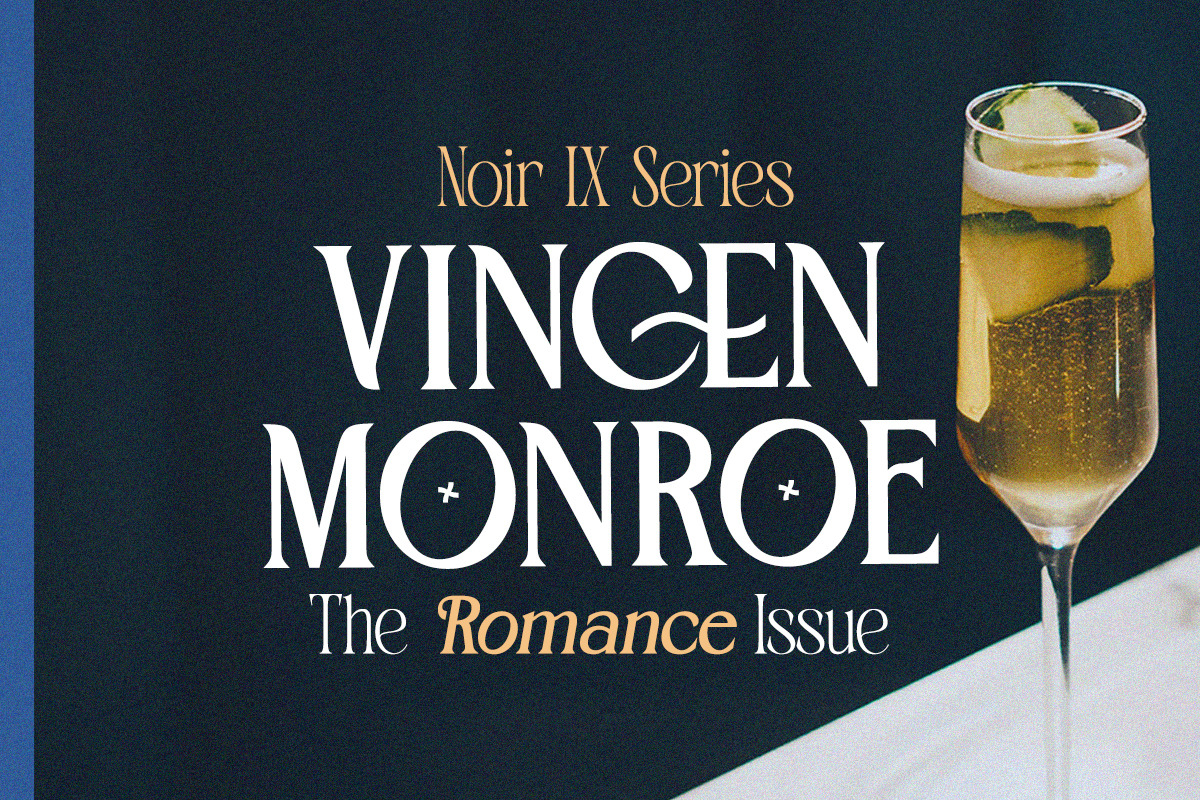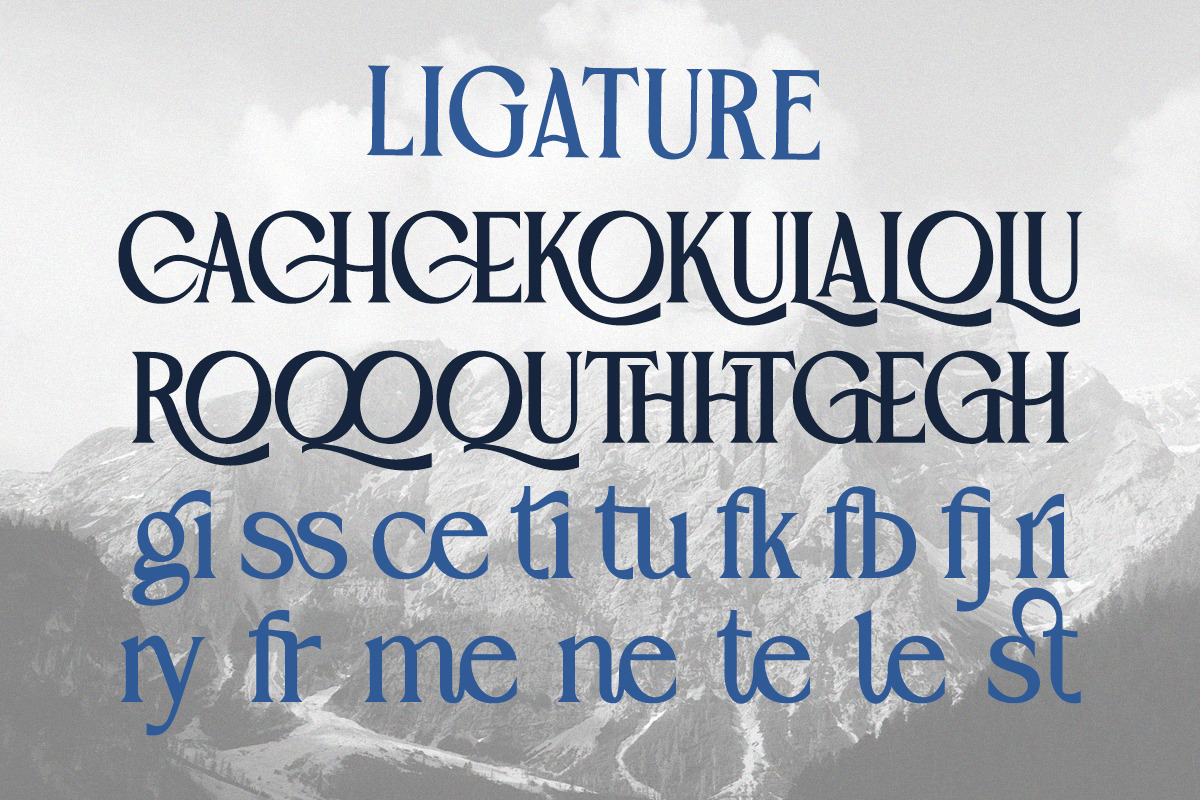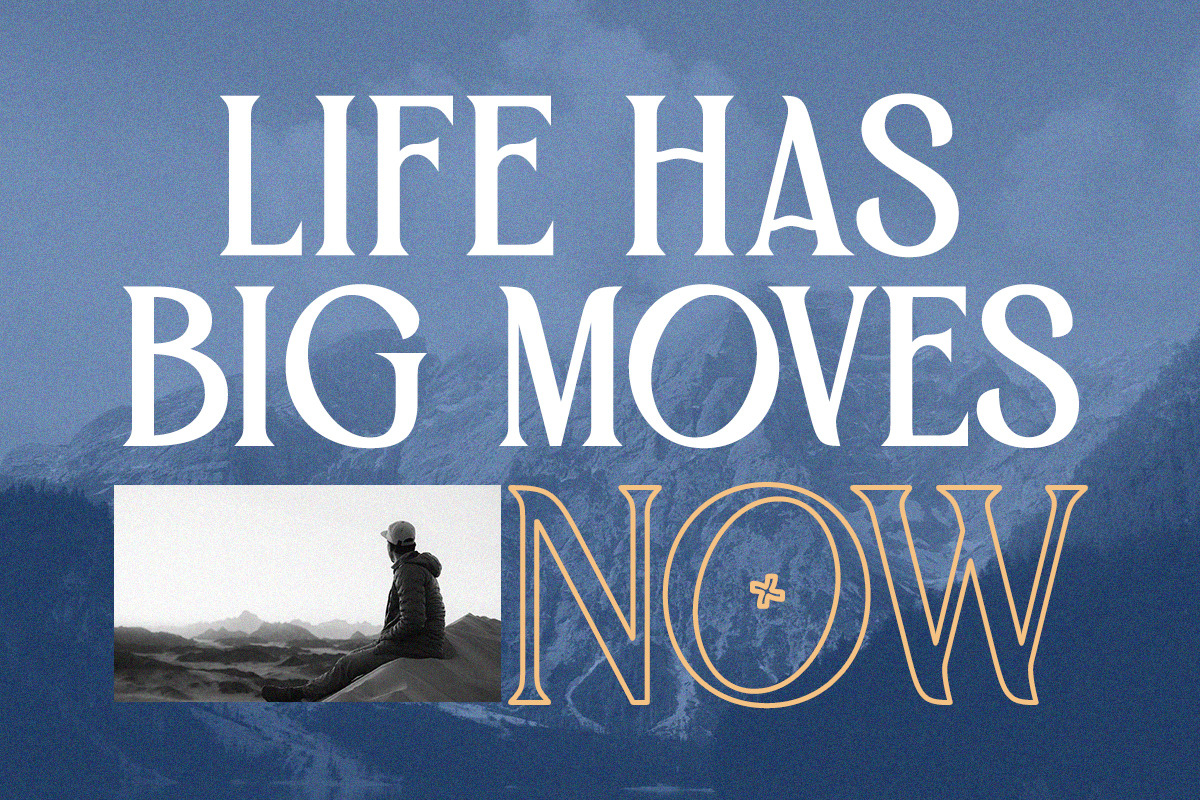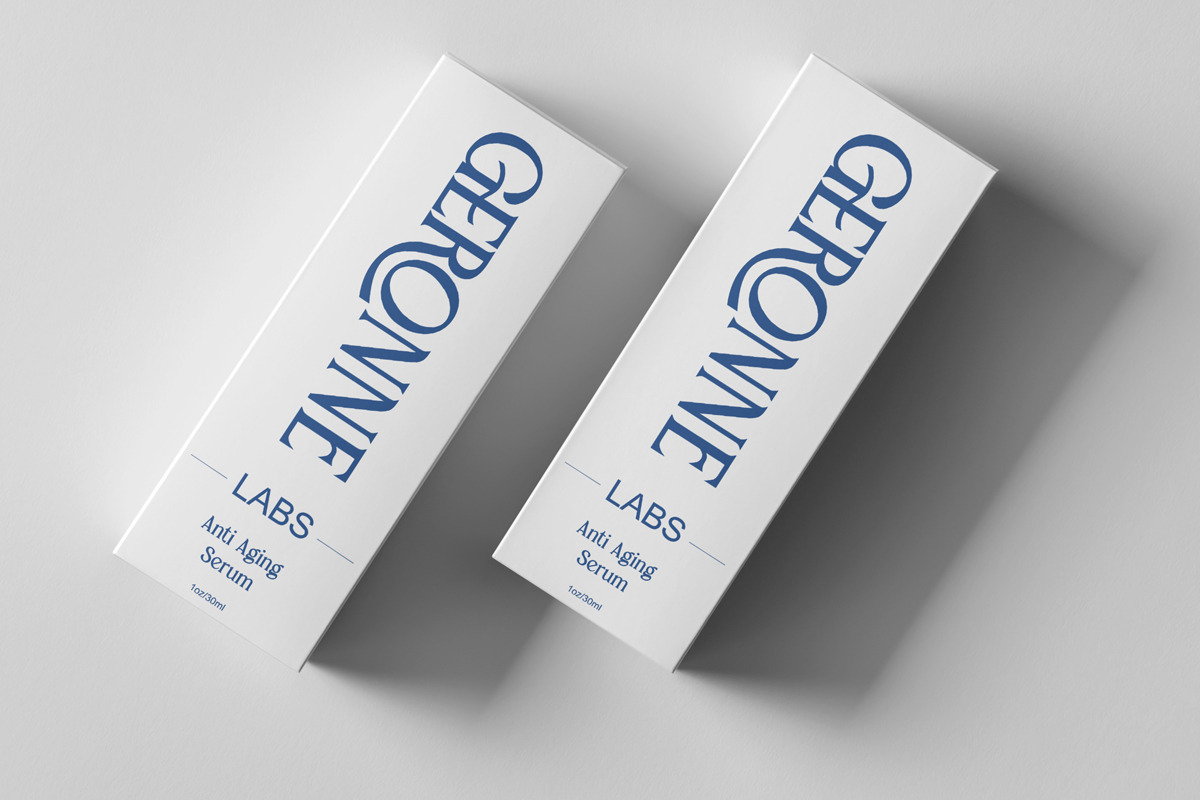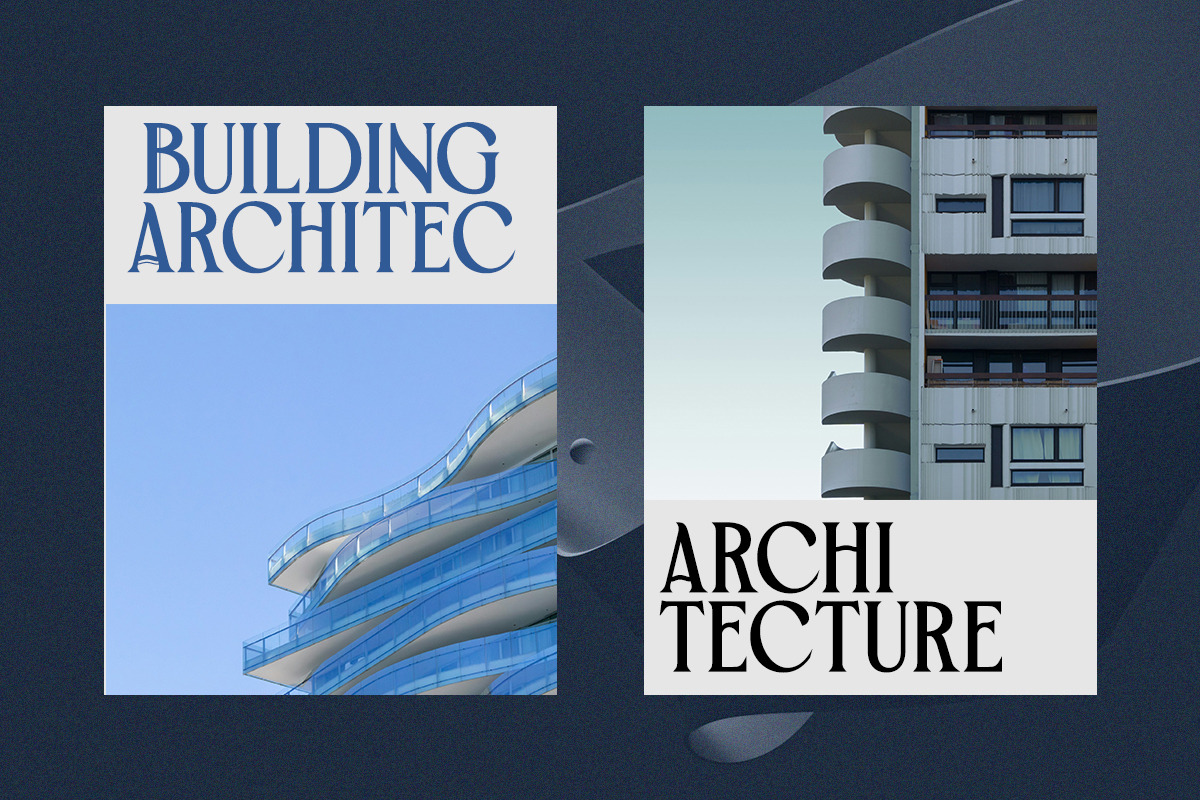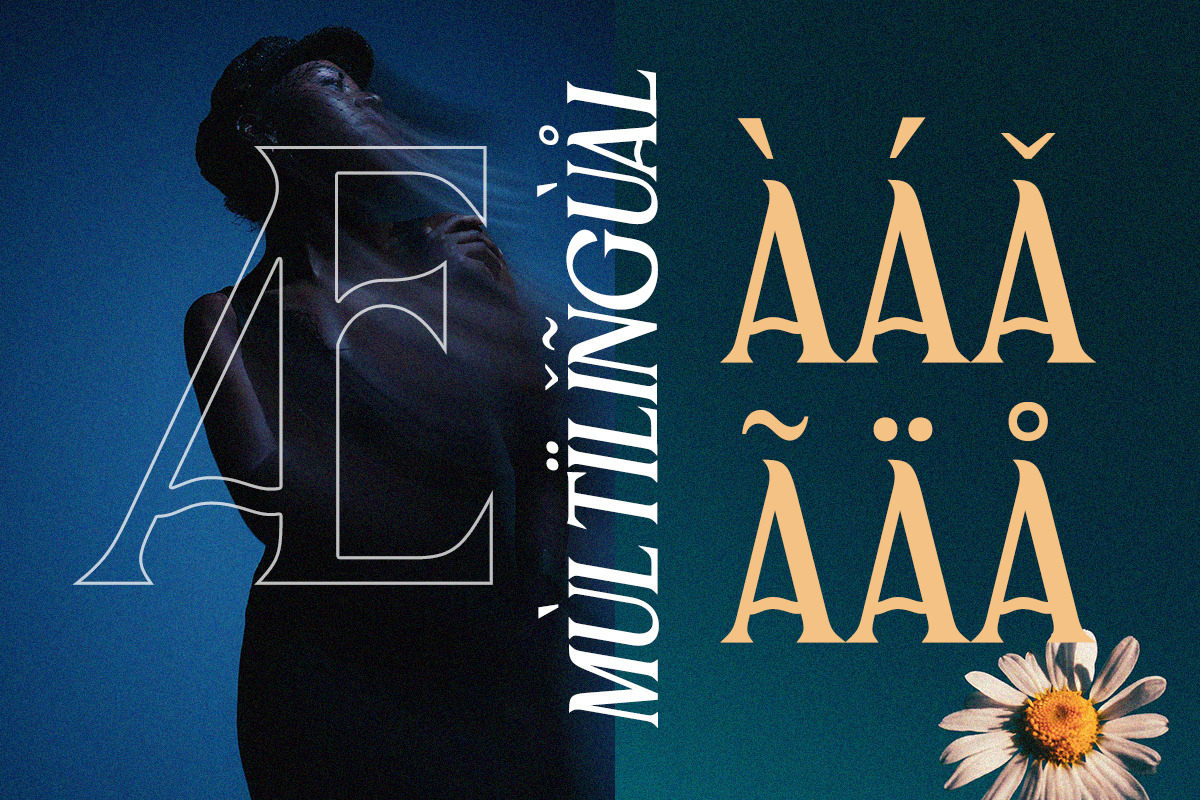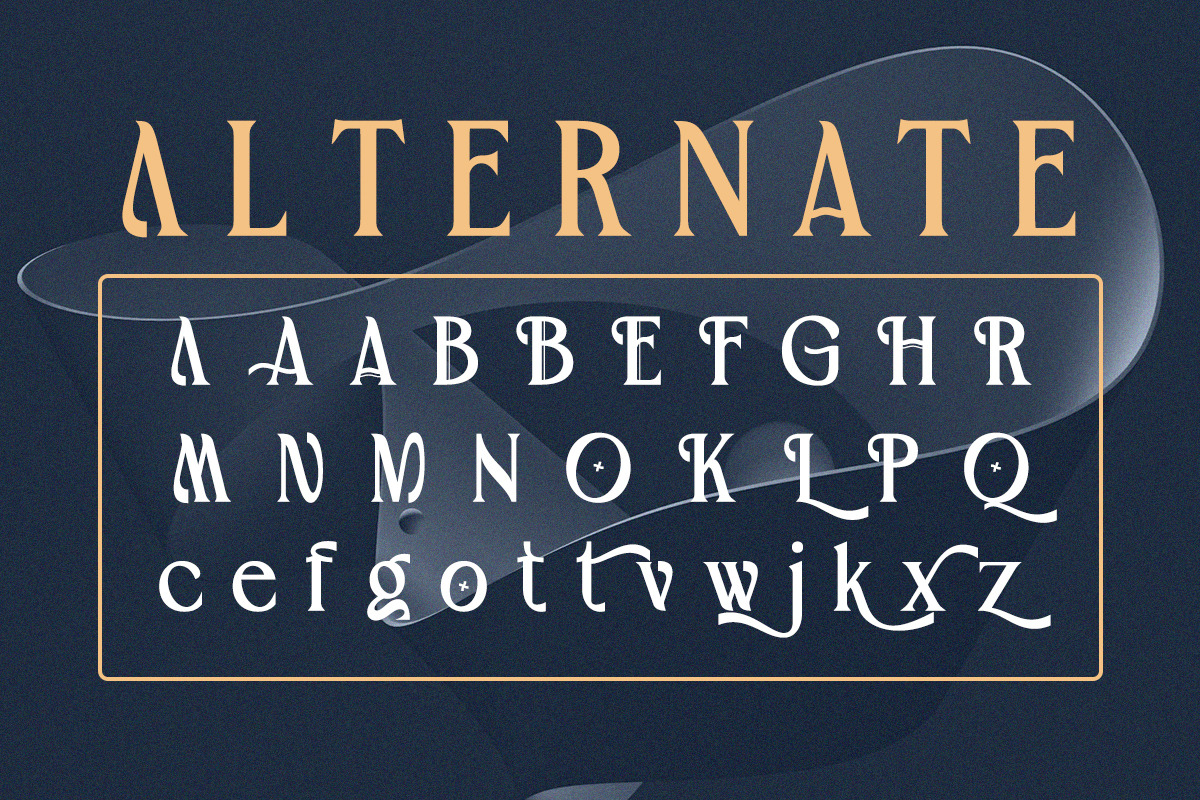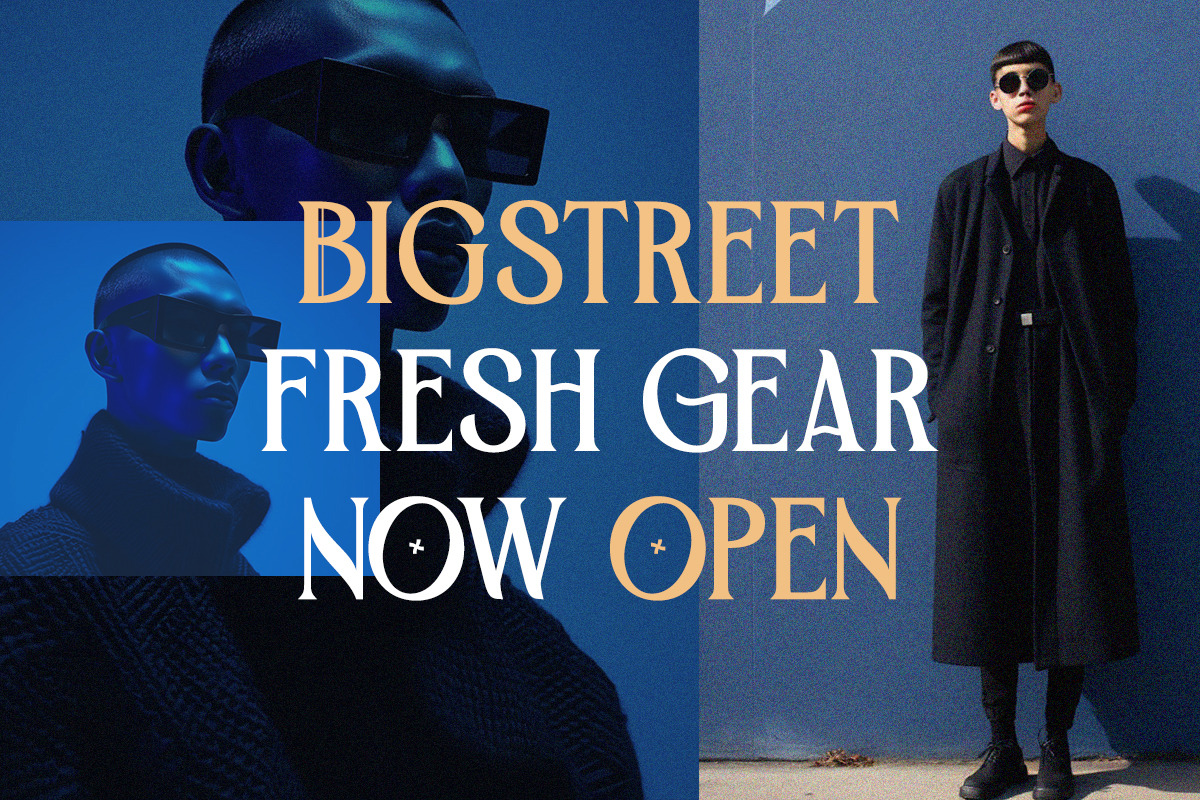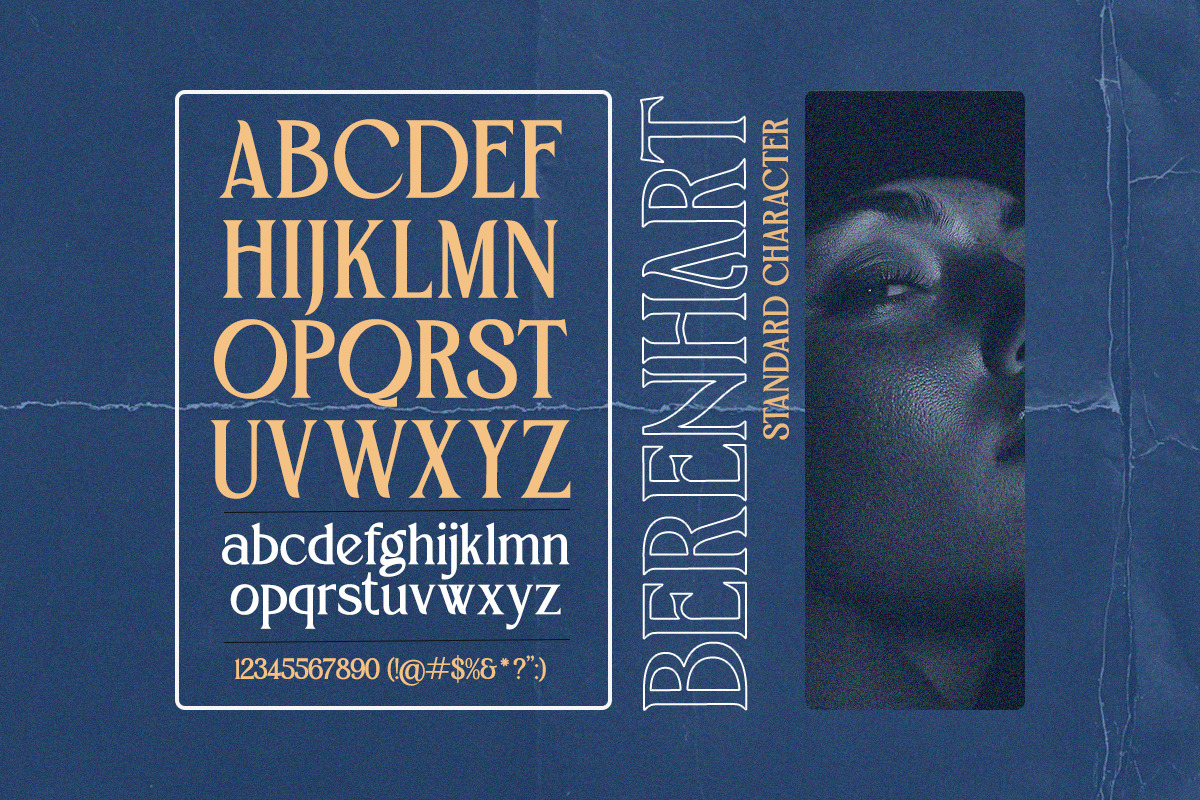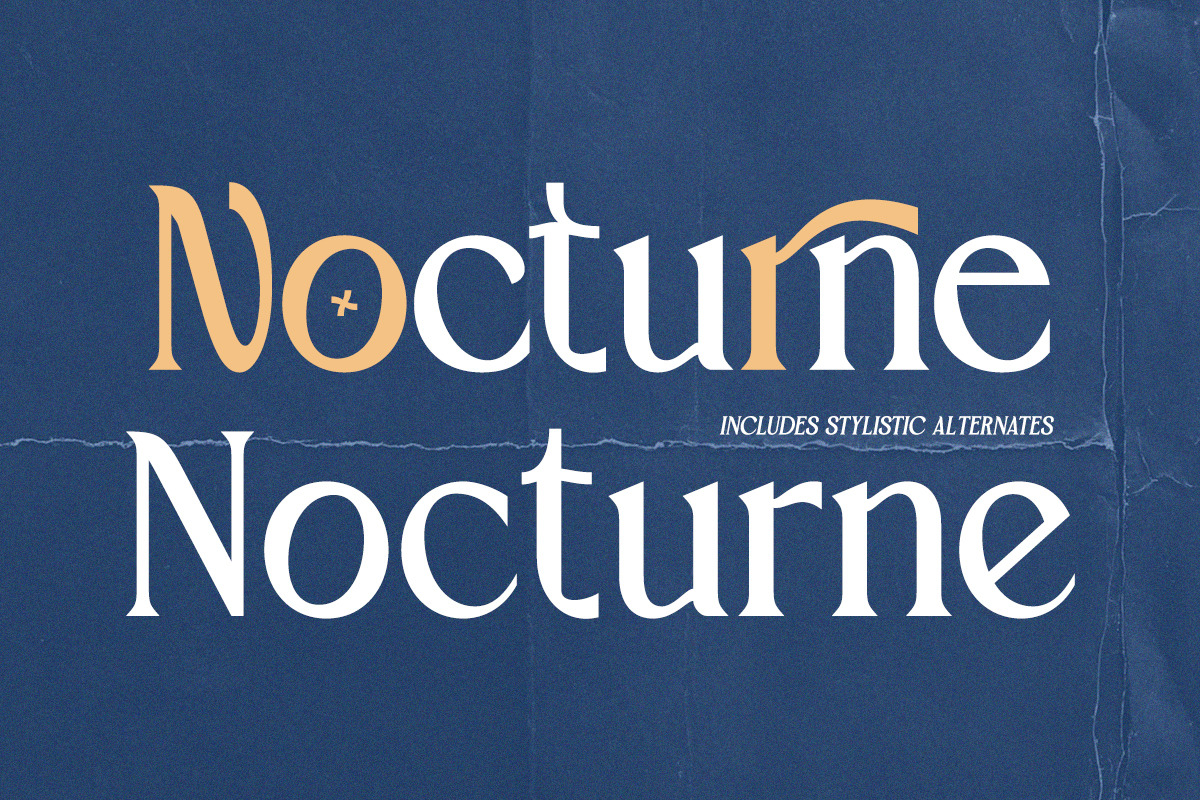
Berenhart - Elegant Modern Classy
Introducing Berenhart - a sophisticated serif typeface that blends classical form with sharp modern elegance.
Designed with sculptural curves and unexpected contrast, Berenhart brings a bold yet refined presence to any layout. Perfectly balanced for high-end design, this font speaks with clarity, structure, and personality.
Whether you’re building a premium brand or crafting impactful editorial headlines, Berenhart delivers visual distinction with timeless style.
With Regular and Italic styles, ligatures, and unique alternates, Berenhart adapts gracefully to branding systems, packaging, lookbooks, posters, architectural layouts, and social media visuals.
- Alternates & ligatures
- Regular & Italic styles
- Luxury branding & fashion identity
- Editorial design & magazine spreads
- Architecture portfolios & lifestyle books
- Modern packaging & product design
- Logo creation & stylish monograms
- Social media content & headlines